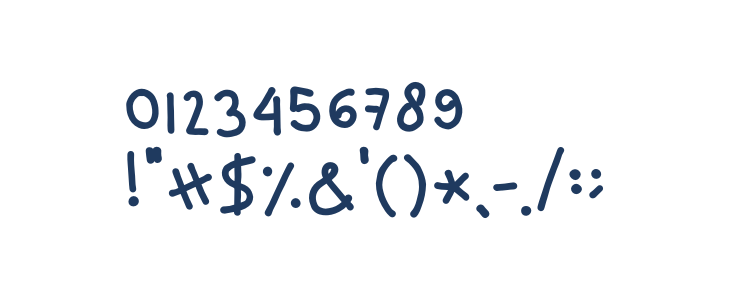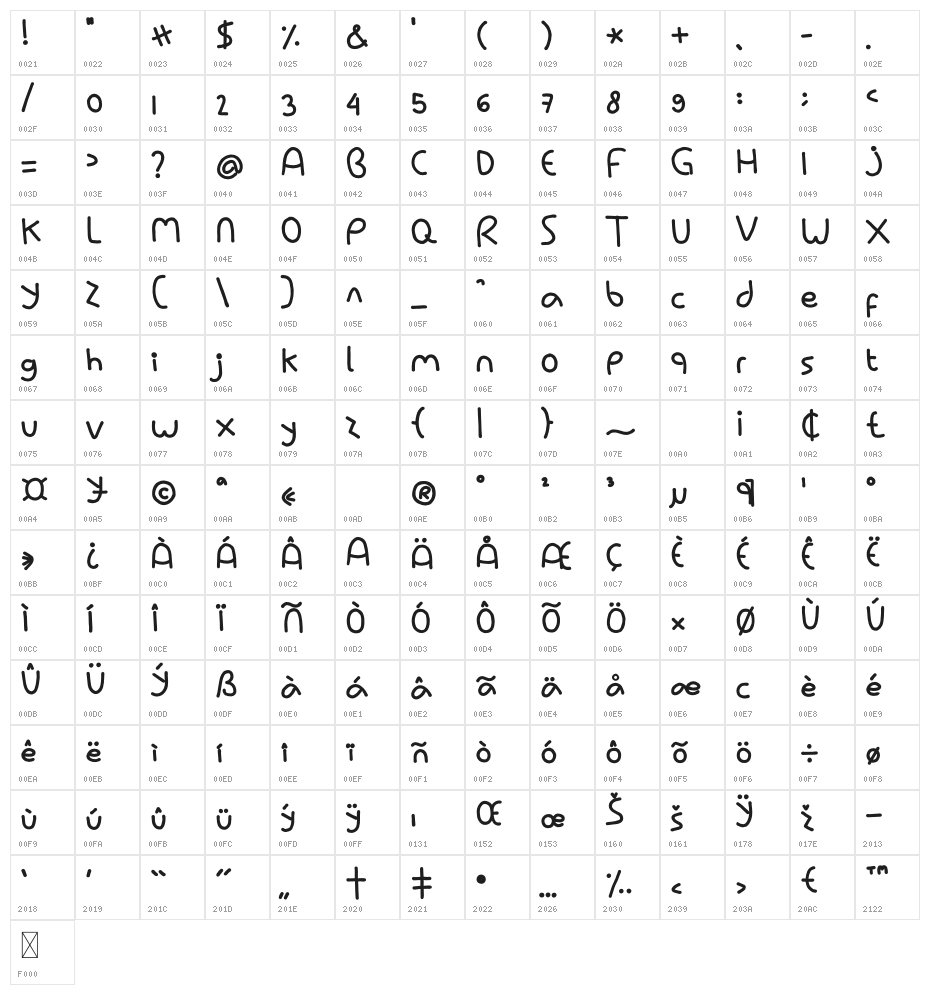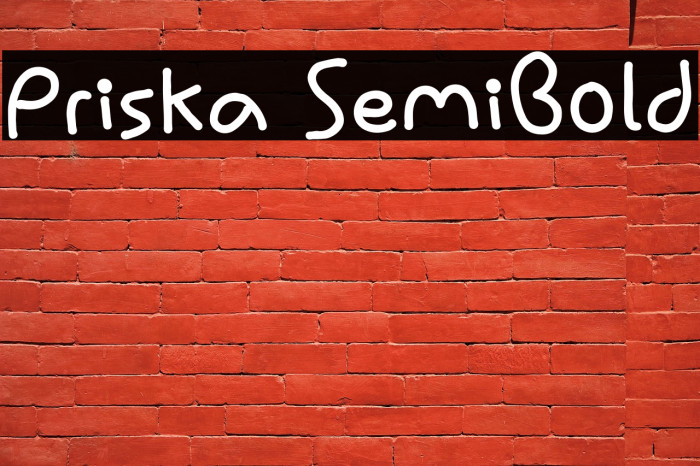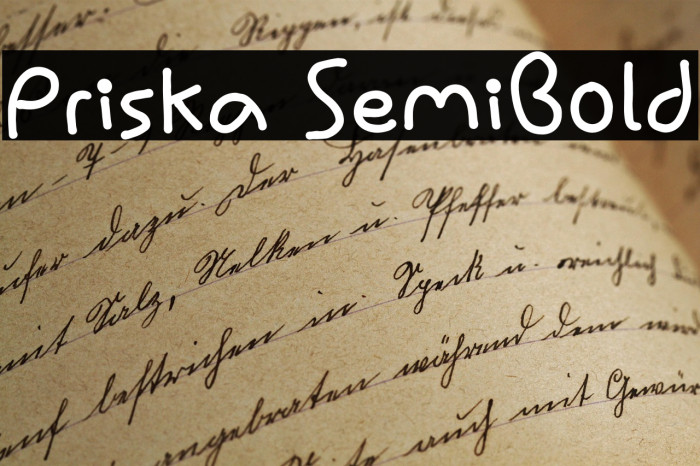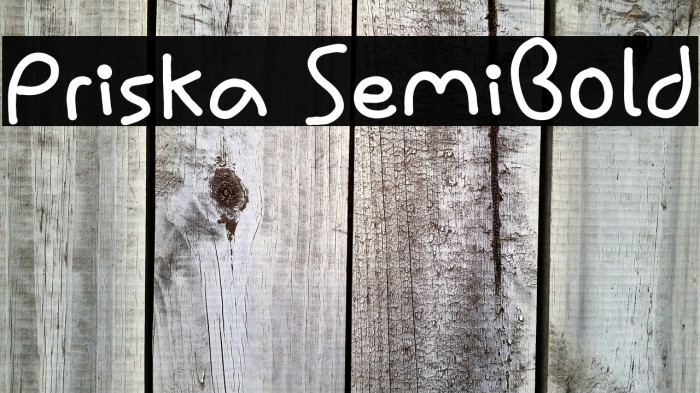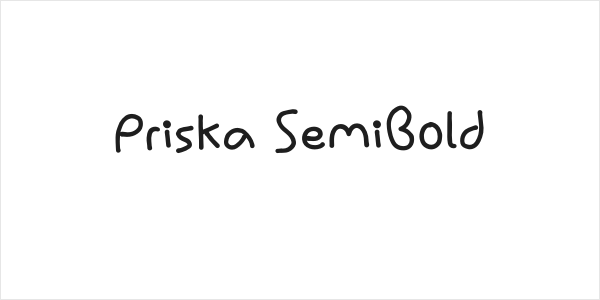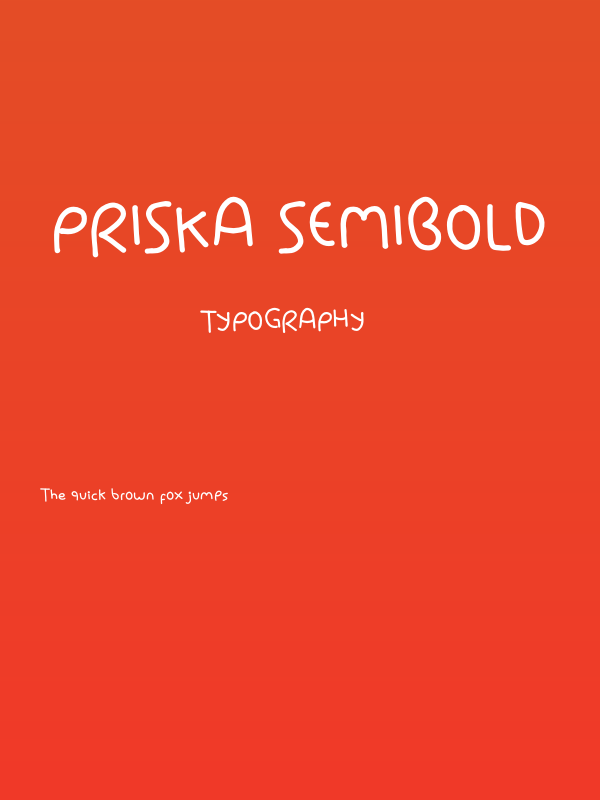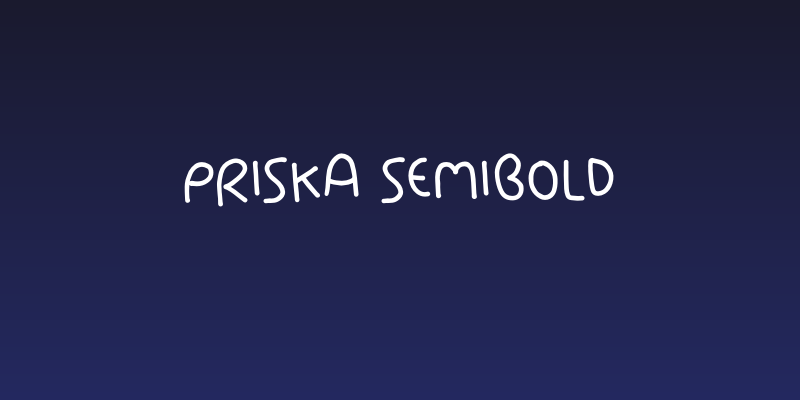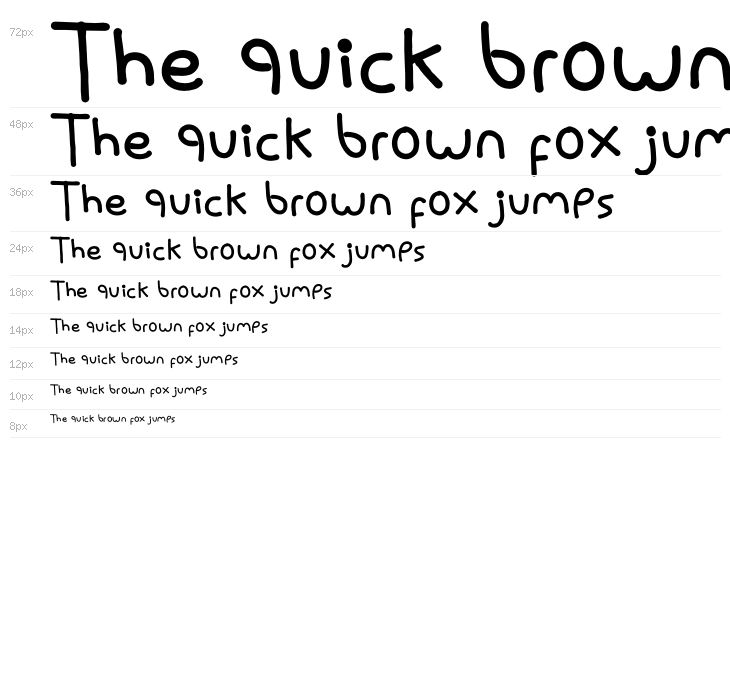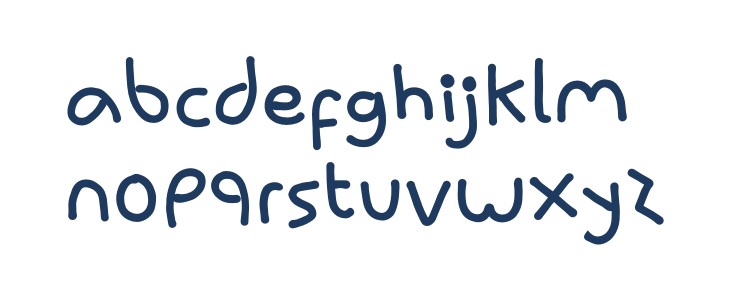
Priska SemiBold Font
Priska SemiBold Description
This font features a playful and rounded style, characterized by its smooth, flowing lines and slightly irregular shapes. The letters have a hand-drawn quality, giving them a casual and friendly appearance. The uppercase and lowercase letters maintain a consistent style, with rounded edges and a uniform stroke width that adds to the font's approachable feel. The numerals and special characters are designed to match the overall aesthetic, ensuring a cohesive look across all text elements. This font is ideal for projects that require a touch of whimsy and informality.
| Proposed Projects | Ideal for children's books, playful branding, casual invitations, and creative posters. |